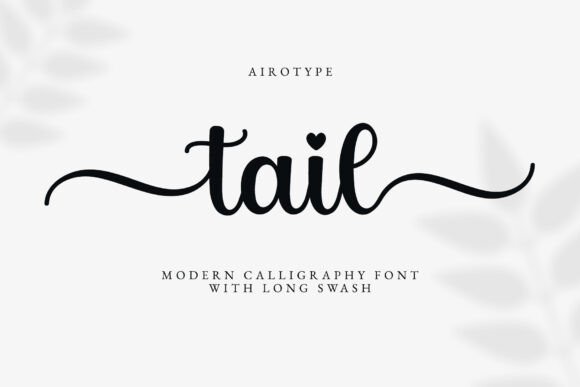
Tail Font
Tail is a simple, modern script calligraphy font that radiates elegance, love, and beauty. It features tail swashes at the beginning and end of the letters, adding even more elegance and charm to your designs.
Tail is a beautiful font perfect for projects with elegant and modern vibes, such as weddings, invitations, stickers, sublimation, cards, birthday designs, t-shirts, farmhouse décor, and more.